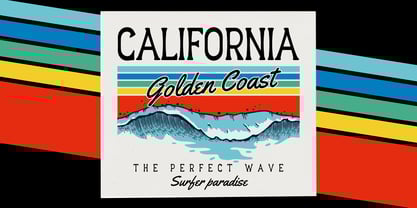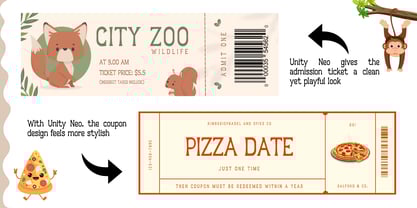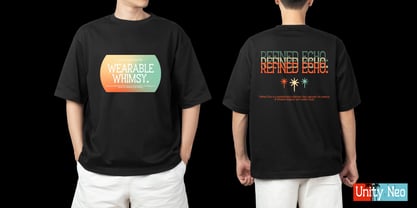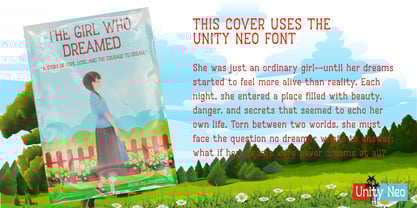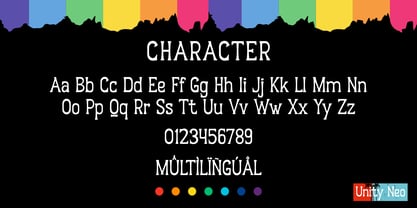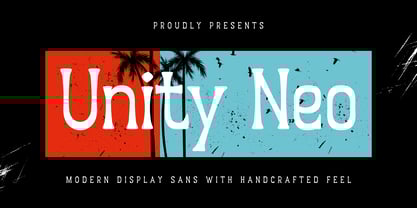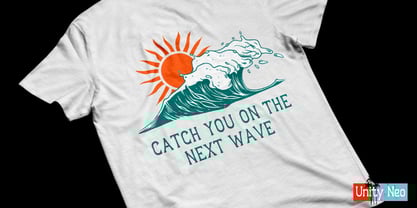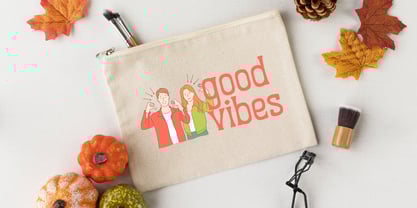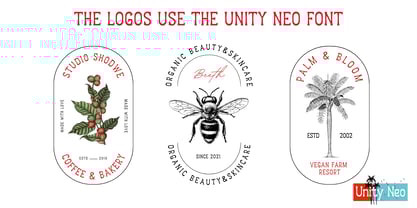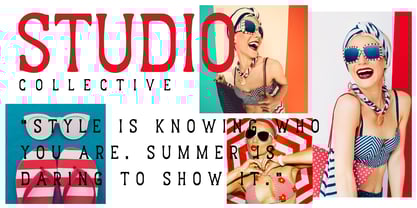
Unity Neo
Unity Neo is a striking display sans-serif typeface that combines the clarity of modern typography with the charm of handwritten elements. Its unique, quirky shapes make it ideal for grabbing attention in headlines, signage, and innovative layouts. Although primarily a sans-serif, the handwritten influence lends a warm, humanistic touch, making it a perfect choice for branding, advertising, and editorial design projects. Unity Neo supports a wide range of multilingual characters, ensuring versatility in both print and digital media. This font excels in creating engaging visuals that resonate with audiences, making it a go-to option for designers seeking to infuse creativity and personality into their work.